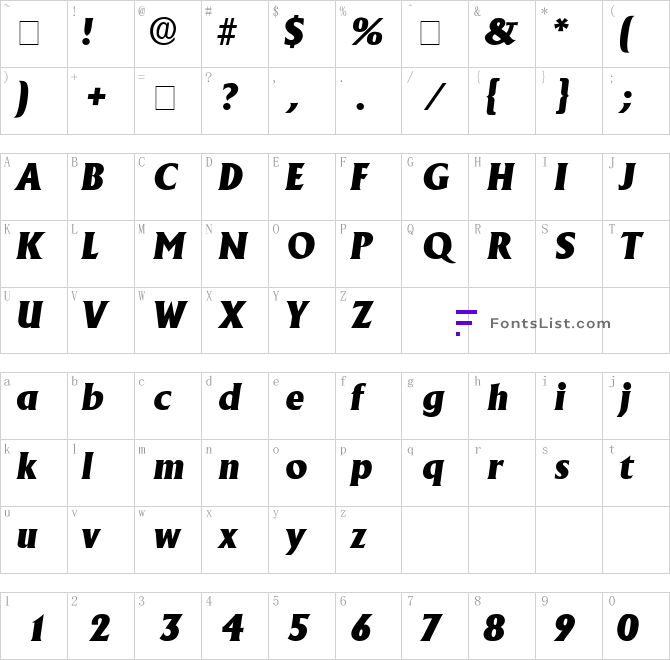
- Font Name:Ankura SSi
Ankura-SSi-Italic.ttf is a very beautiful artistic font, Ankura-SSi-Italic.ttf is widely used in the design and printing of various books and pictures,Ankura-SSi-Italic.ttf has a strong visual impact,Ankura-SSi-Italic.ttf is a commonly used font in newspapers, magazines and books, and is used in posters, e-commerce Poster design, store design, logo design, font design and other fields.Ankura-SSi-Italic.